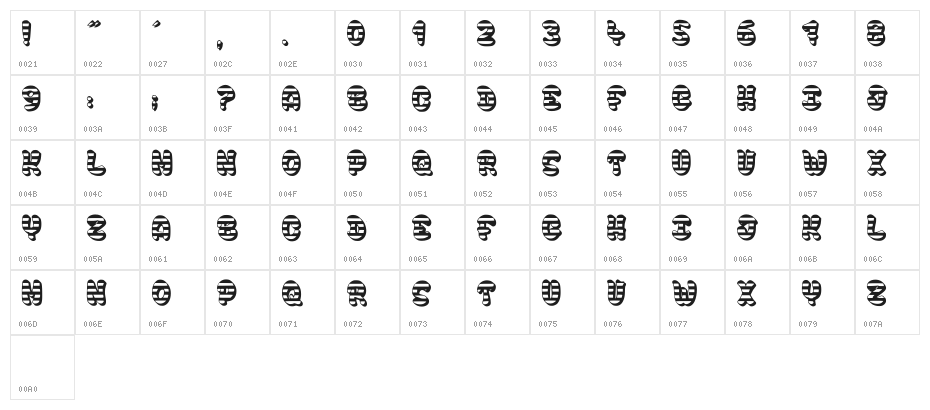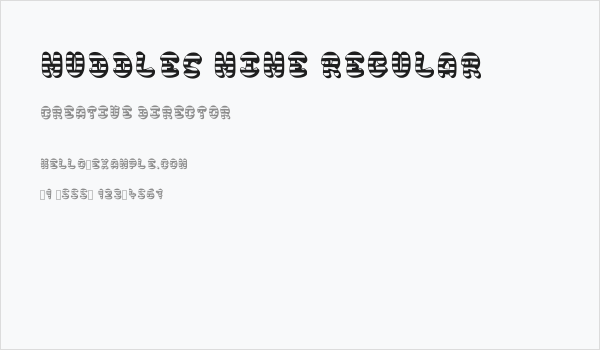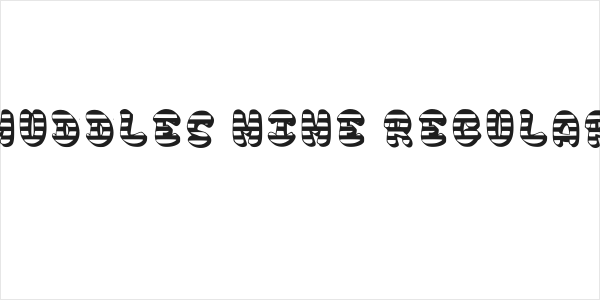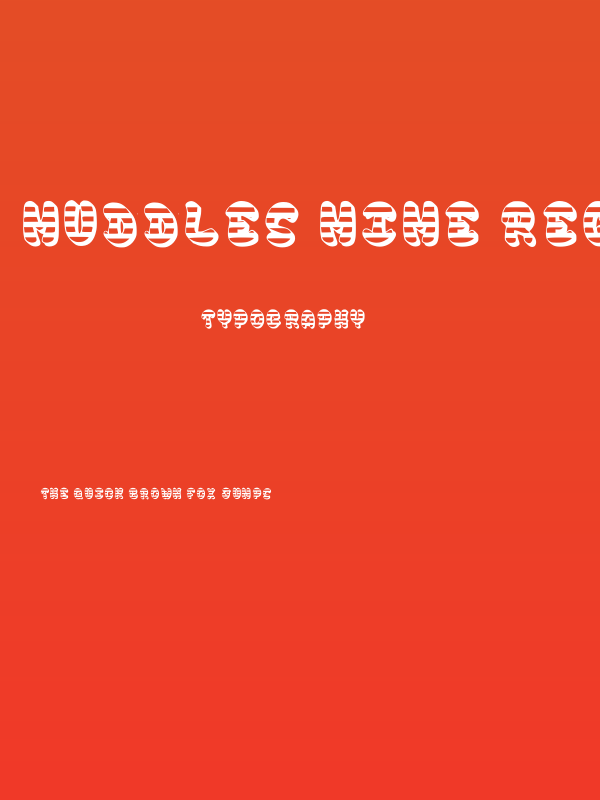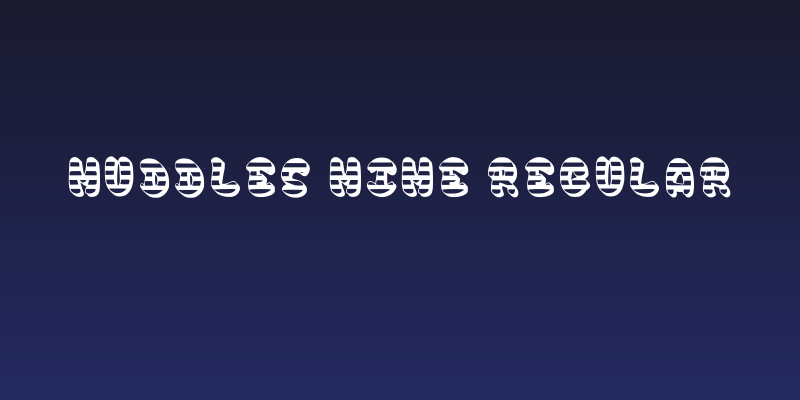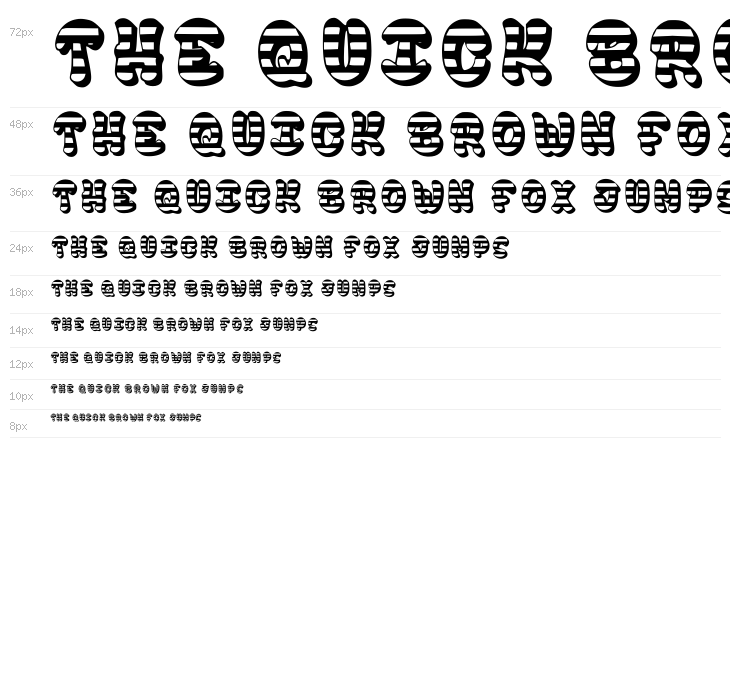
Muddles Mime Regular Font
Muddles Mime Regular Description
This font features a playful and whimsical design with bold, rounded characters that incorporate horizontal stripes, creating a mime-like appearance. The letters are evenly spaced and maintain a consistent thickness throughout, giving a cohesive and uniform look. The unique pattern within each character adds a decorative touch, making it stand out for creative and artistic projects. The numbers and special characters follow the same design principles, ensuring a harmonious visual style across all elements.
Overall StylePlayful, Whimsical
Proposed ProjectsIdeal for children's book covers, playful branding, party invitations, and creative posters.